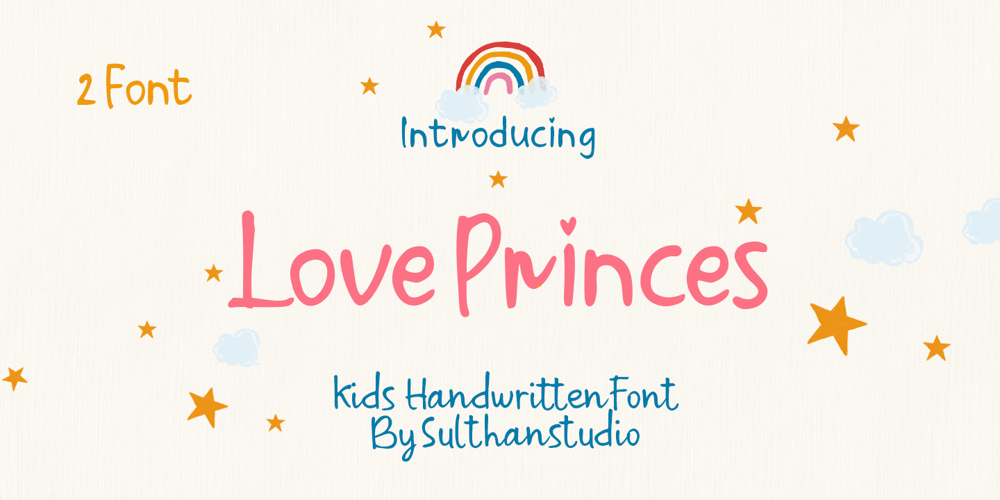
Love Princes Font Family was designed by Nasrullah and published by Sulthan Studio. Love Princes contains 2 styles and family package options. Love Princes is a handwritten script font that was written using a marker on paper and then I made it into a charming and very natural font, with two very cool writing characters if paired or used in one of your works